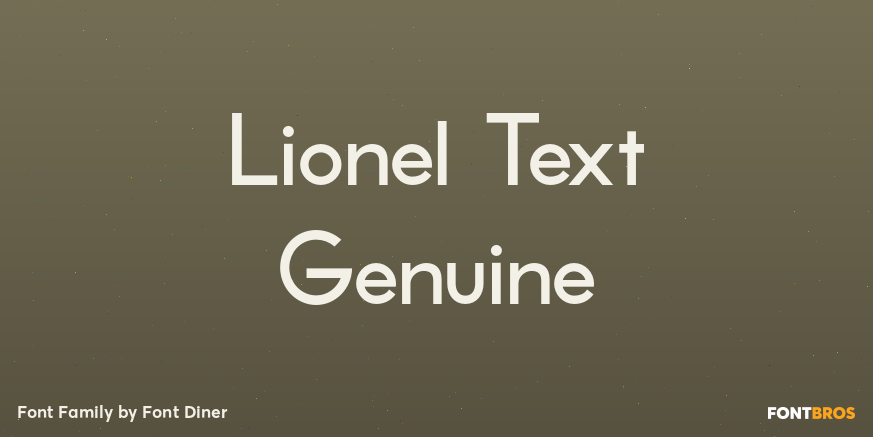
HomeFont BrosArt Deco (1910-1935)Lionel Text Genuine Art Deco (1910-1935)Sans SerifRetro (1936-1965) Lionel Text Genuine FacebookXPinterestWhatsApp 1 of 1 About Lionel Text Genuine Take this 1940s inspired sans-serif for a spin on the Reading RR in its classic medium weight!  DOWNLOAD ON FONT BROSThis font is sold and delivered by Font Bros. Font Canyon may earn a commission if you buy through this link. People also explored Rain in Spring Font Goldie Dreambox Font Exocell Font Farmhouse Font Lemon Pie Font Something Shine Font Bumbly Font Globetrot Font Smile Day Font 310 0 TagsLionel Text Genuine Font Previous articleJukay BTNNext articleBarquesville LEAVE A REPLY Cancel reply Comment: Please enter your comment! Name:* Please enter your name here Email:* You have entered an incorrect email address! Please enter your email address here Website: Save my name, email, and website in this browser for the next time I comment. Personal Use Free Antaro Personal Use Free Read more about this font New System Personal Use Free Read more about this font Nesto Copper 42 Font Personal Use Free Read more about this font Gardening Personal Use Free Read more about this font BLOG Free Fonts Risk: Why Free Fonts Can Be Dangerous for Designers Free Fonts Risk: Why Free Fonts Can Be Dangerous for Designers Using free fonts is a common practice in web and graphic design. However, the... Best Fonts for T-Shirt Design – Top 2025 Picks Top 10 Handwritten Fonts That Elevate Your Designs Top 7 Google Fonts Alternatives for Faster and Privacy-Friendly Web Design (2025)